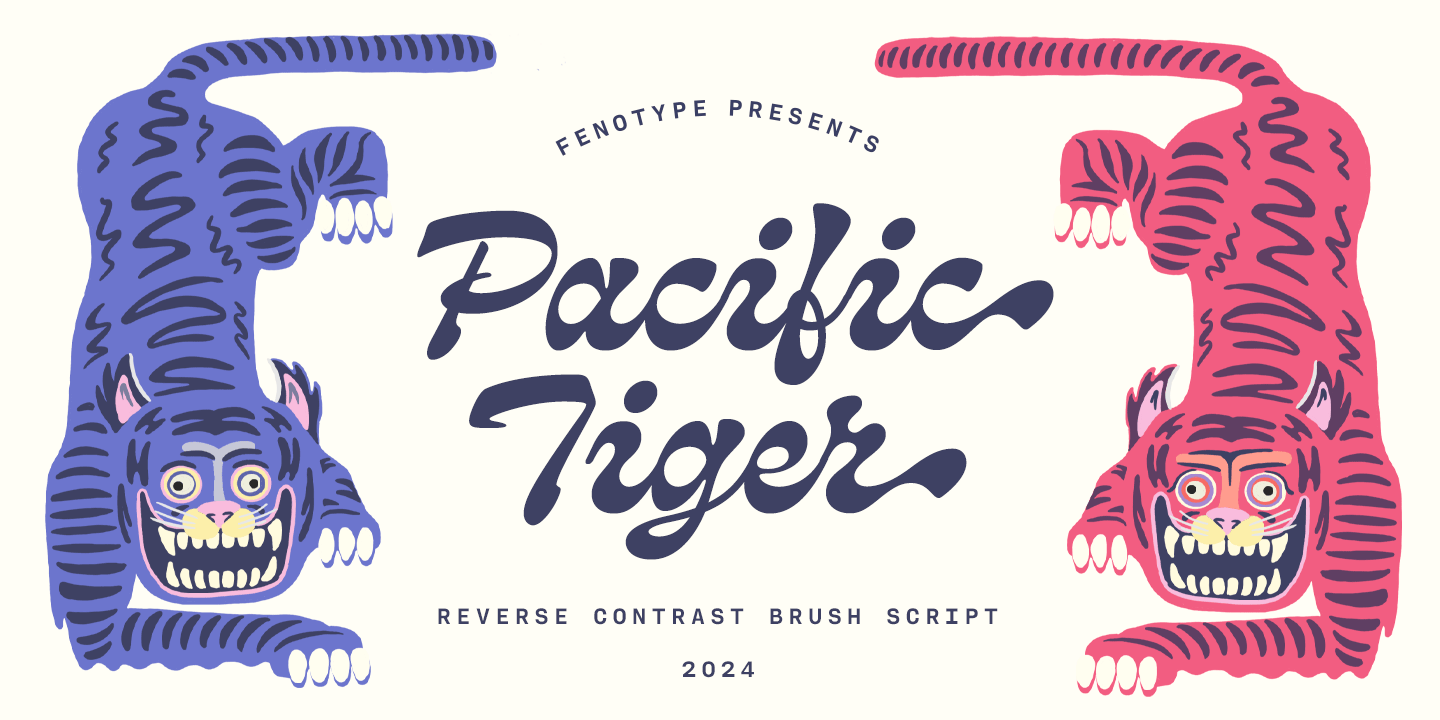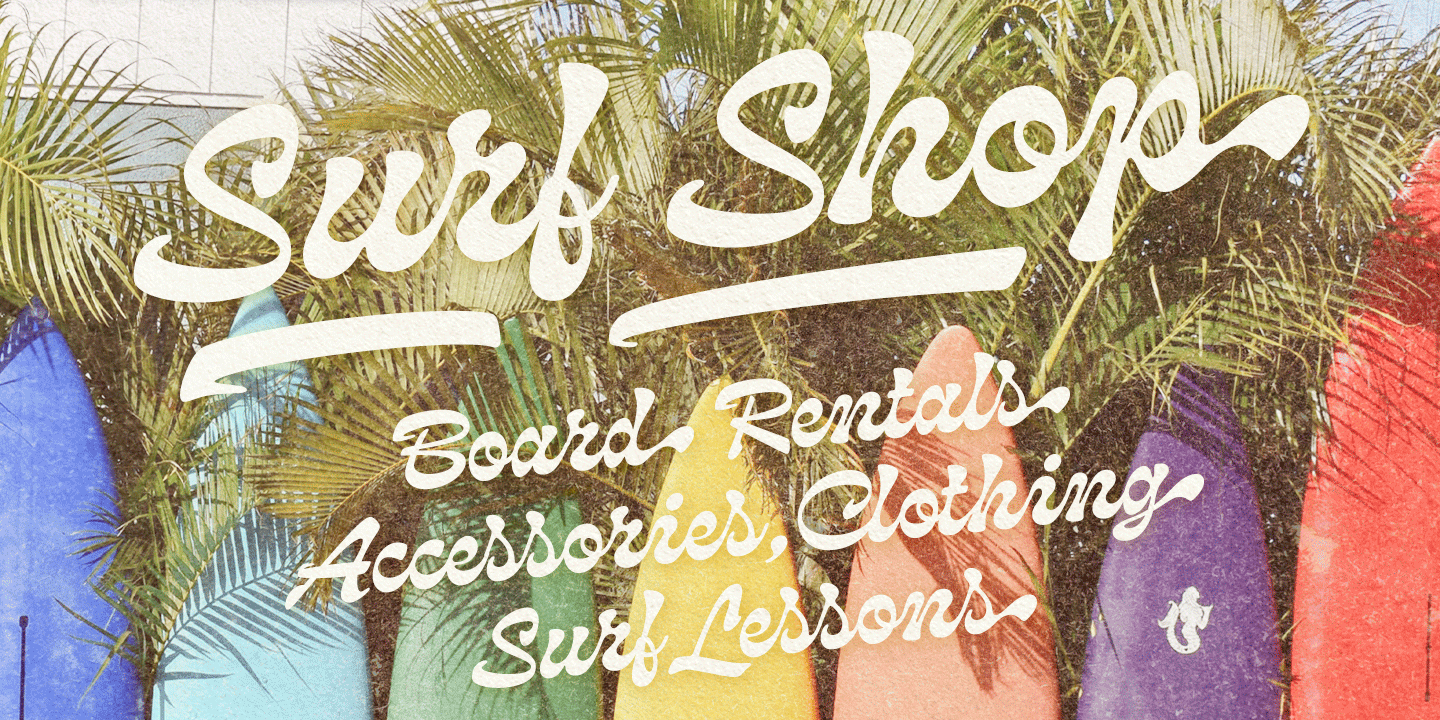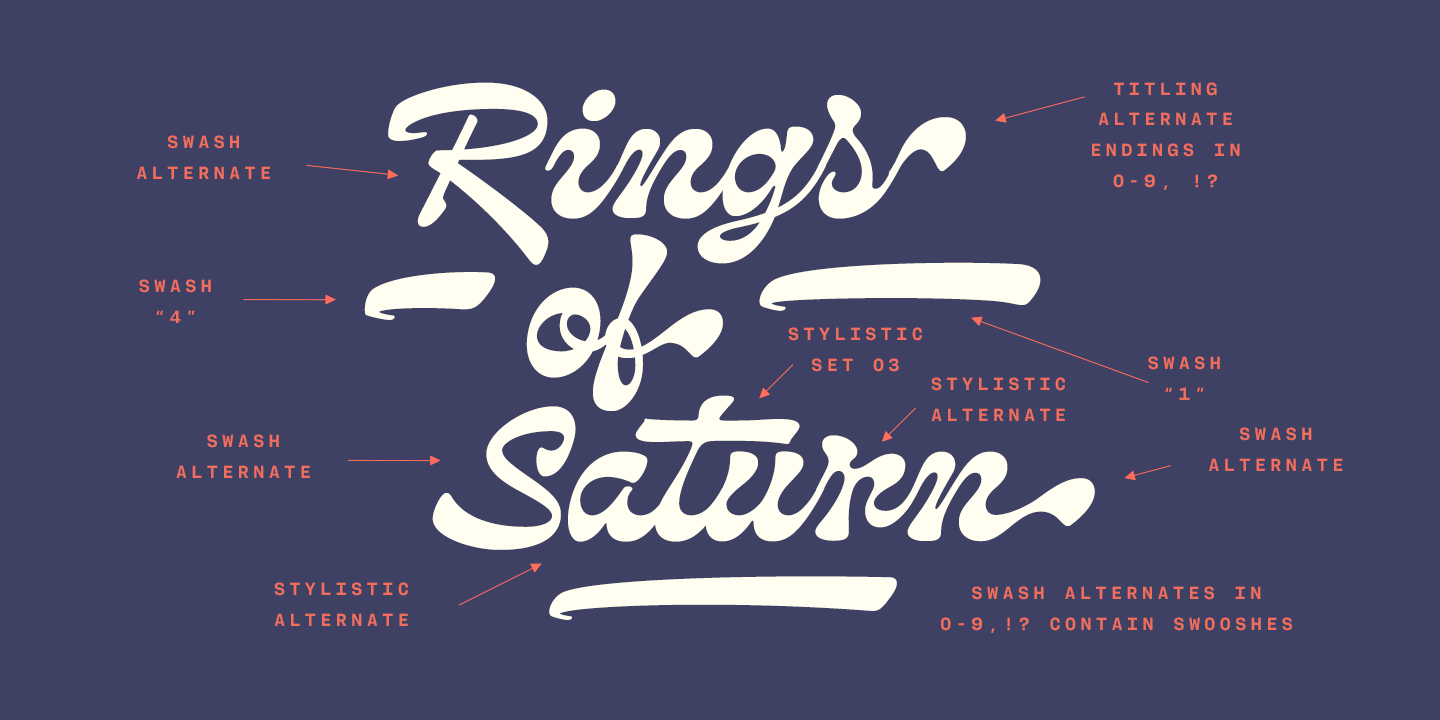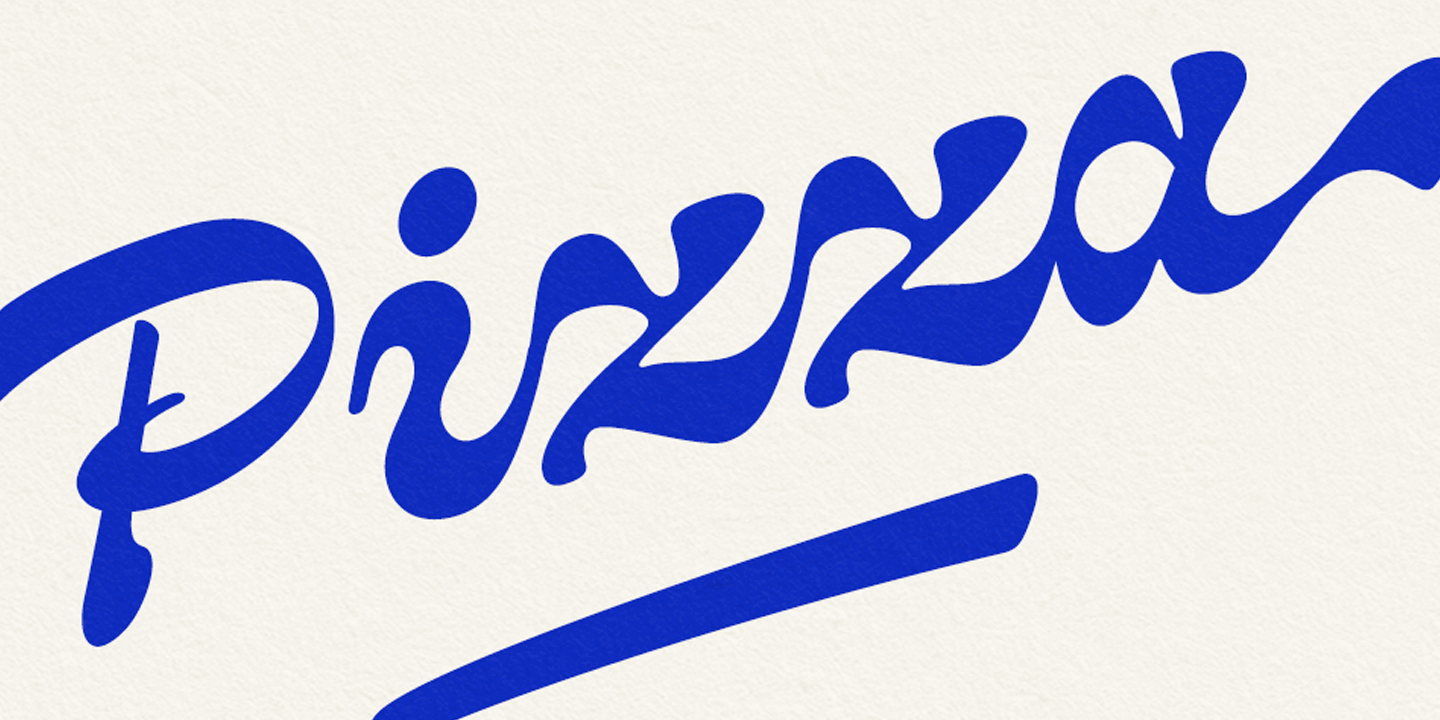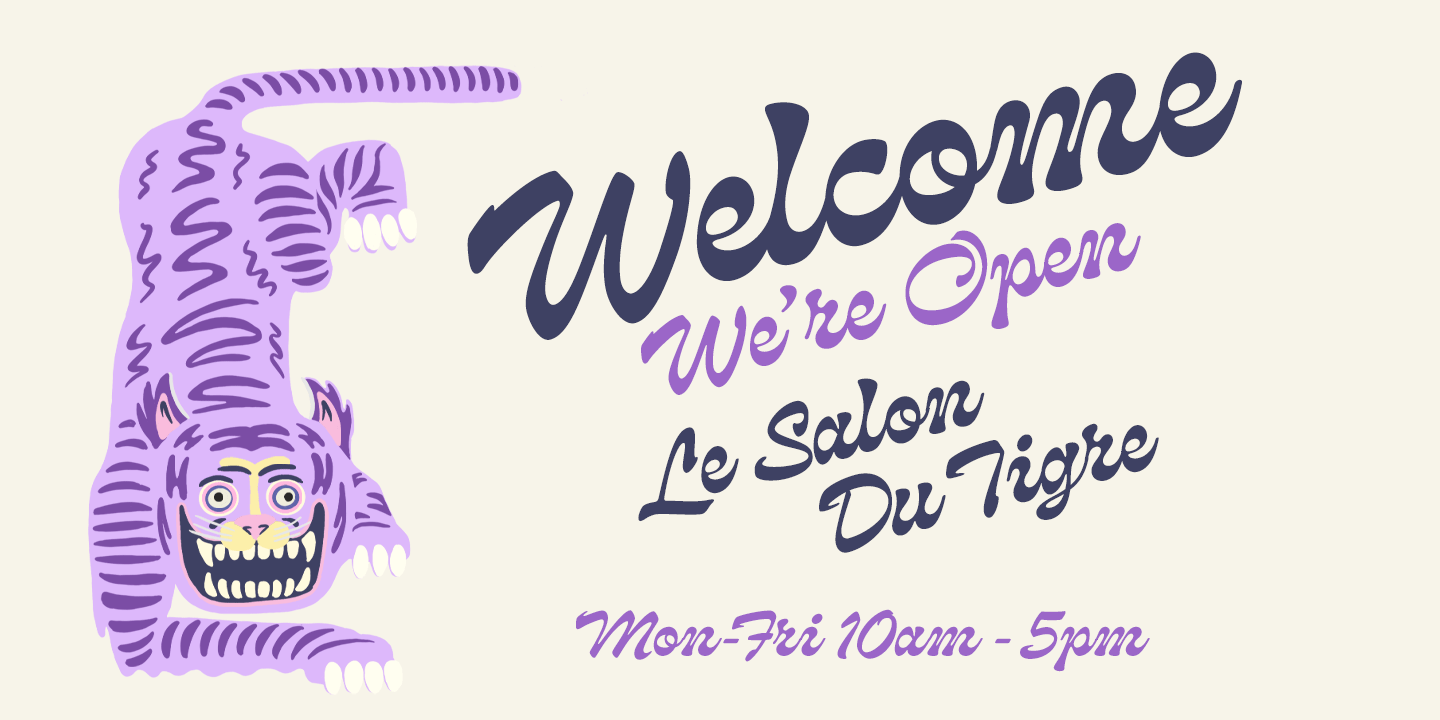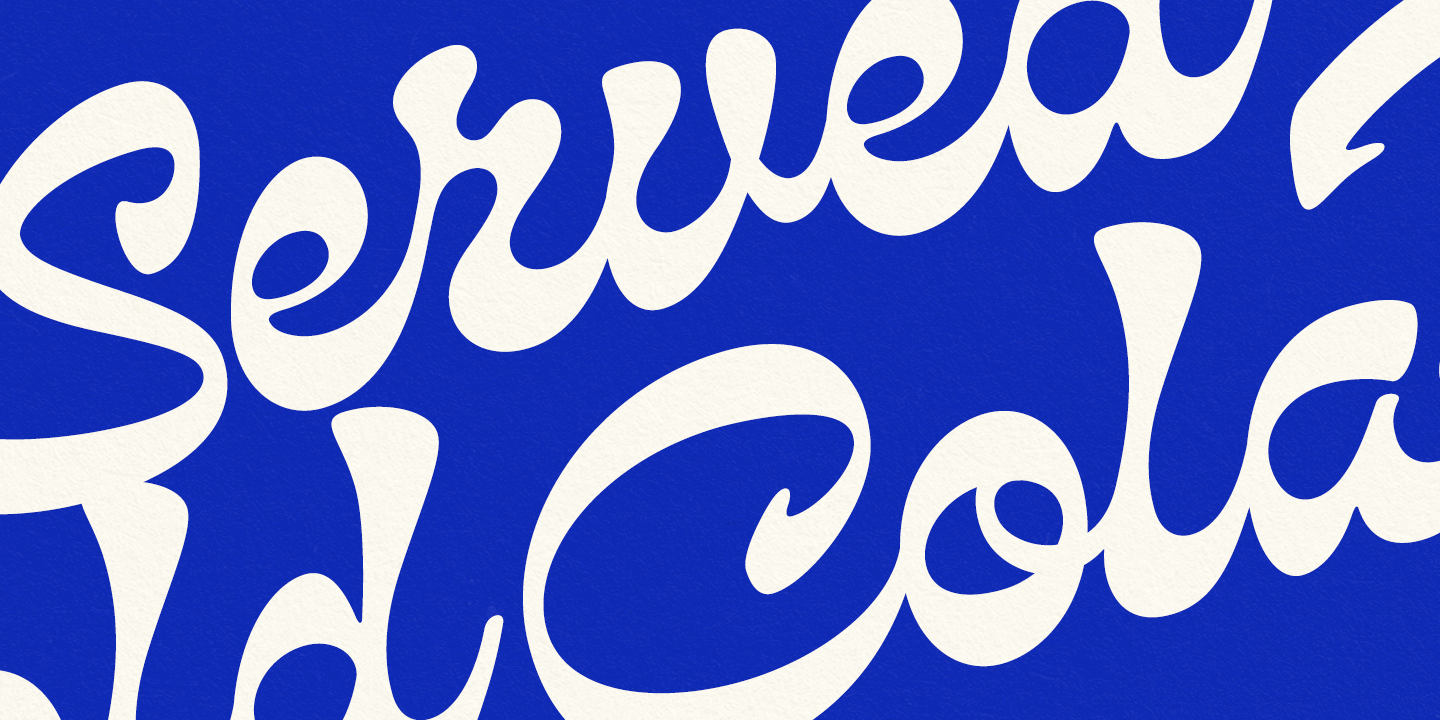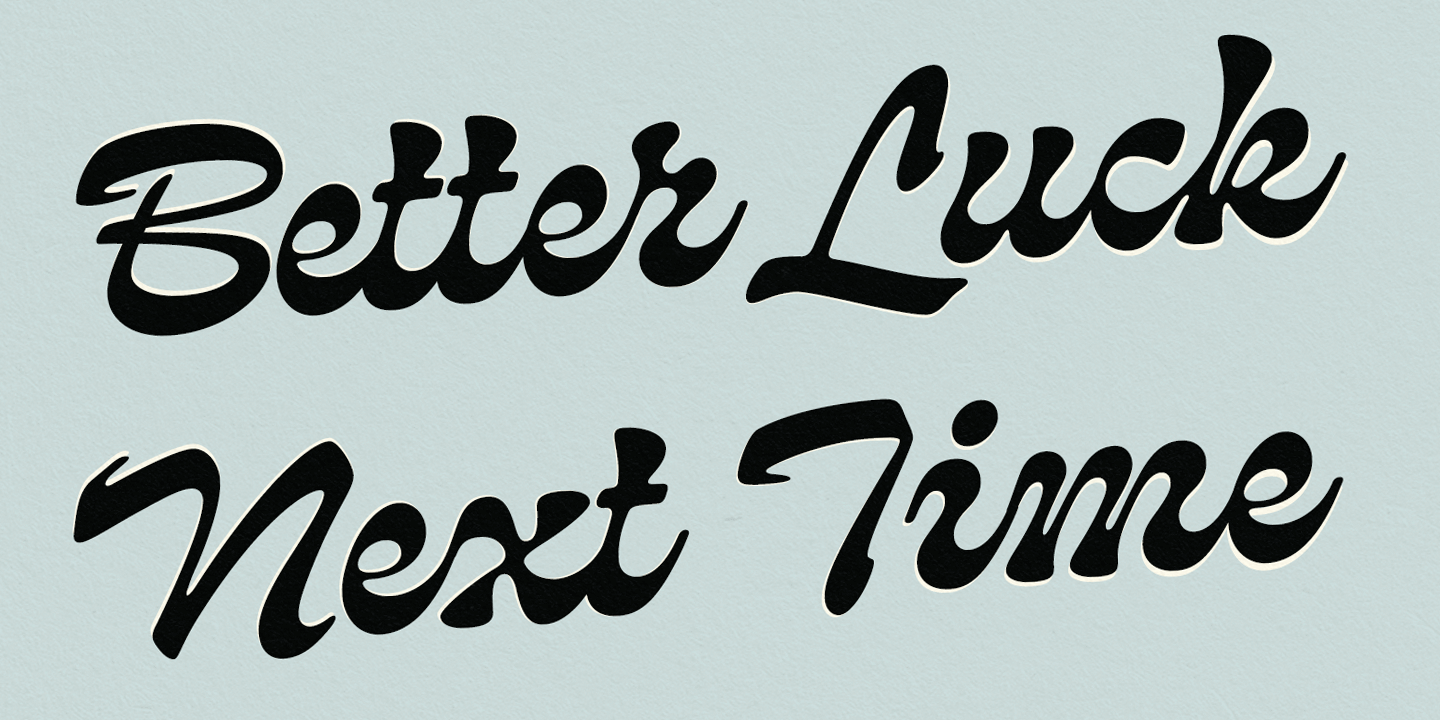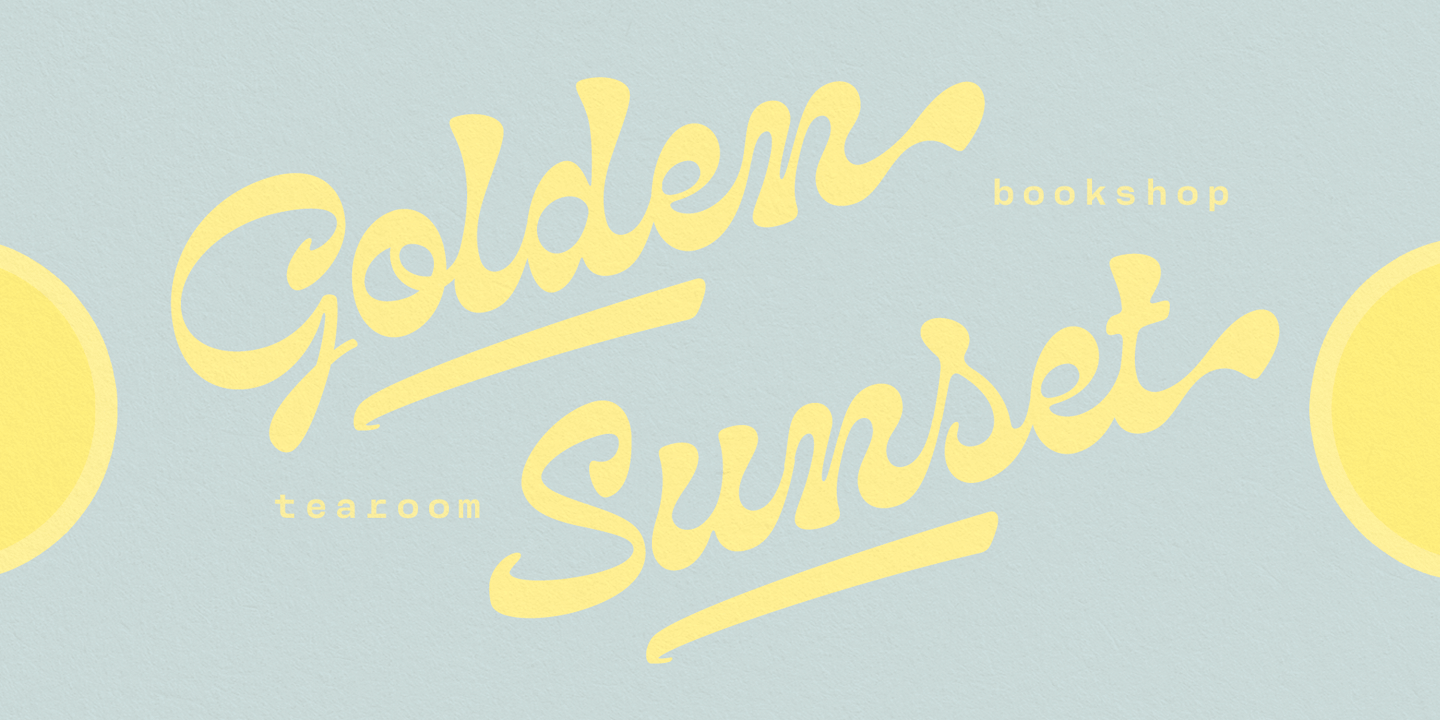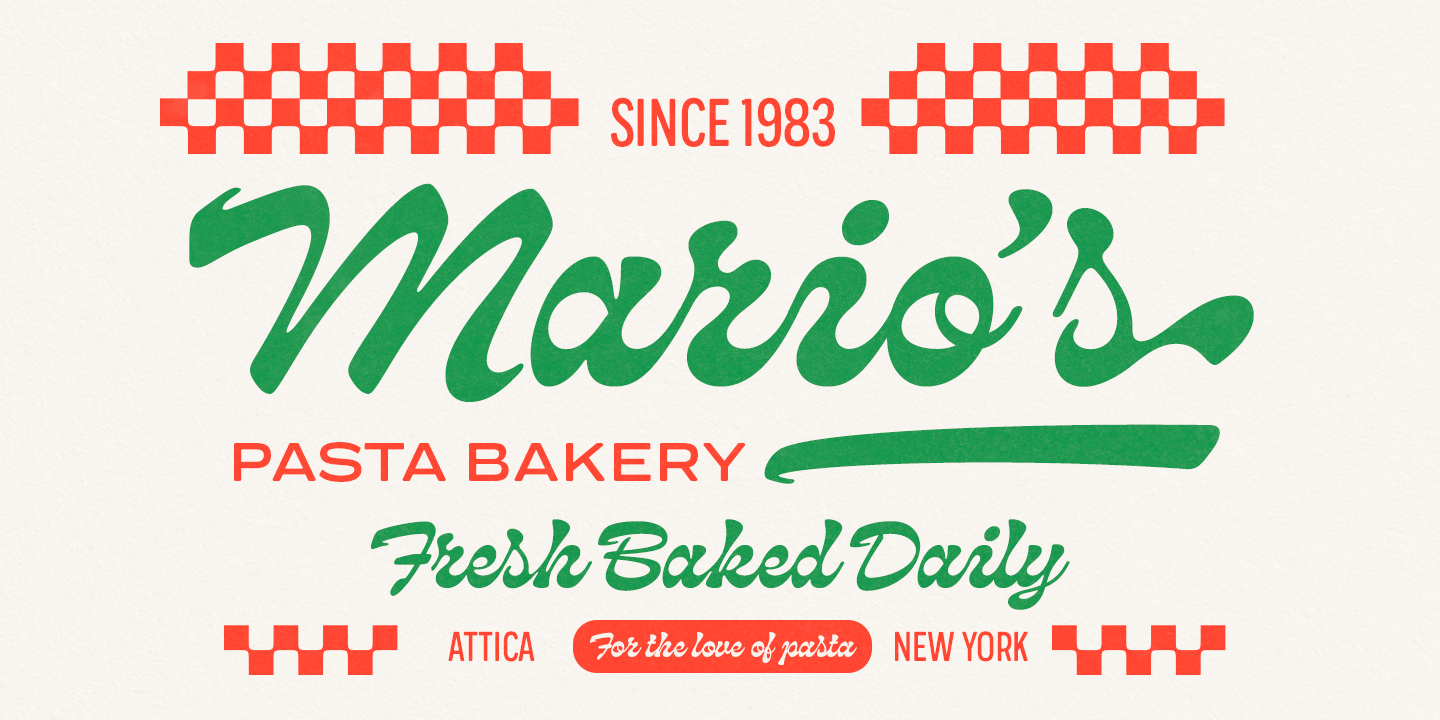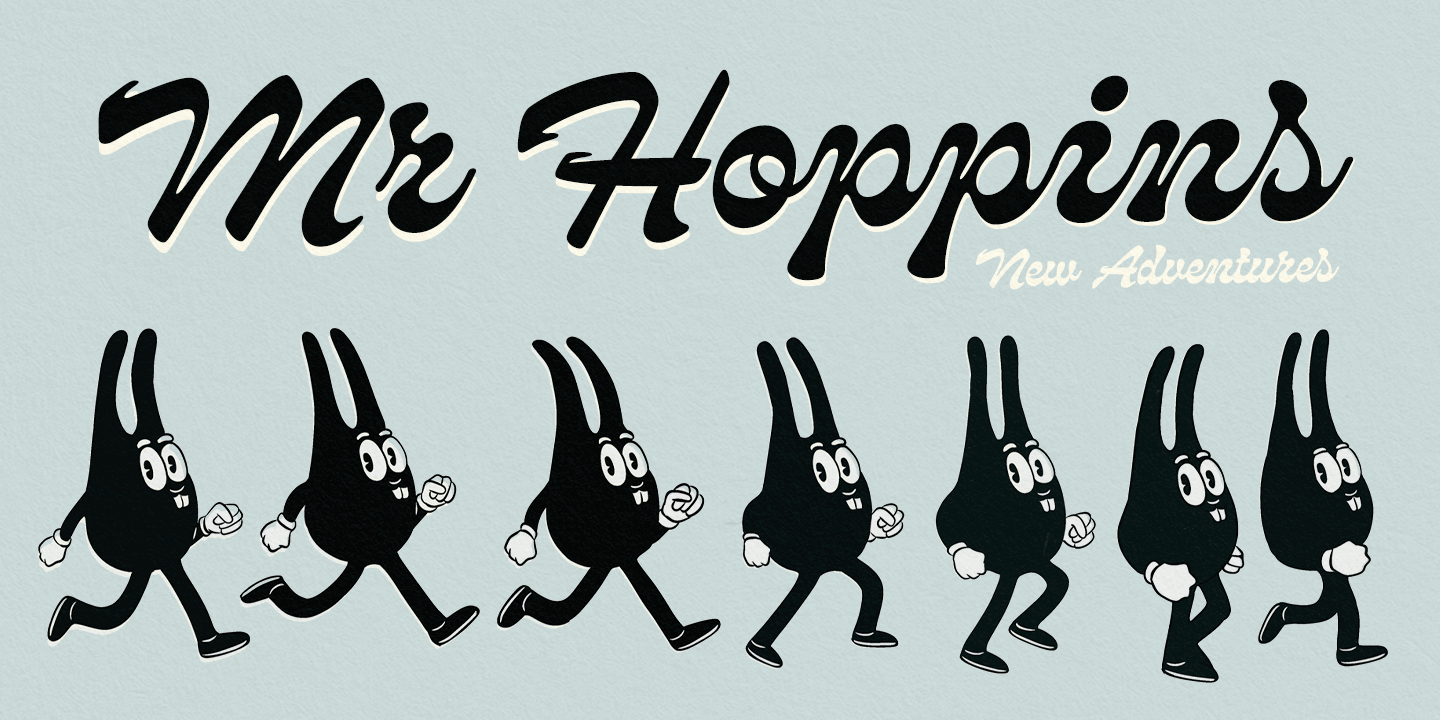
Pacific Tiger
Pacific Tiger is a reverse-contrast brush script with a mellow and smooth summer vibe. Feel the exotic vibe and vigor as you type with Pacific Tiger. It's a distinctive and stylish choice for packaging, labels, posters, and headlines.
Pacific Tiger is equipped with several OpenType features. Contextual Alternates help maintain smooth connections between certain character combinations and are automatically activated. Additionally, it offers a wide range of Swash, Stylistic, and Titling Alternates for alternative uppercase characters and ampersand. There are also Swash terminals for every lowercase character.
Moreover, there is a set of initial ornament shapes that can be combined with lowercase i, j, m, n, p, r, s, x, and z. These shapes are set in Titling Alternates for 0-6 and a set of terminal shapes in 7-9 and exclam and question. There is also a set of ornamental swooshes in Swash Alternates for 0-9, question and exclam.
These shapes complement the designs made with Pacific Tiger.
Furthermore, Pacific Tiger offers a wide selection of lowercase t set in Stylistic Sets 1-9 and in Swash, Stylistic, and Titling Alternates.
Pacific Tiger is derived from Pacific Coast - having more volume and more upright characters, as well as some different design choices.